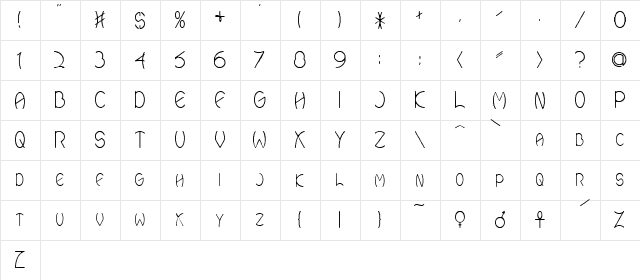
Ovial Caps Regular
Design Context for Ovial Caps Typeface
Ovial Caps is a composed and adaptable typeface that performs quietly and consistently across a wide range of design contexts.